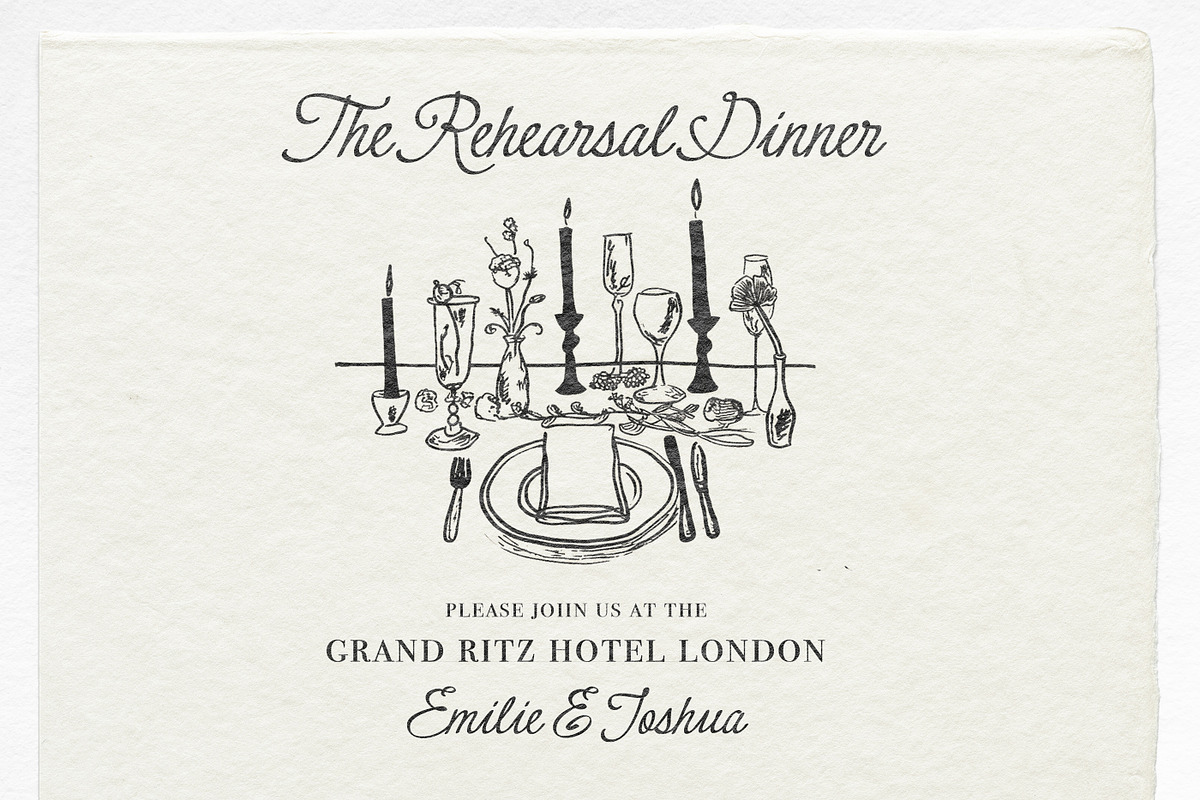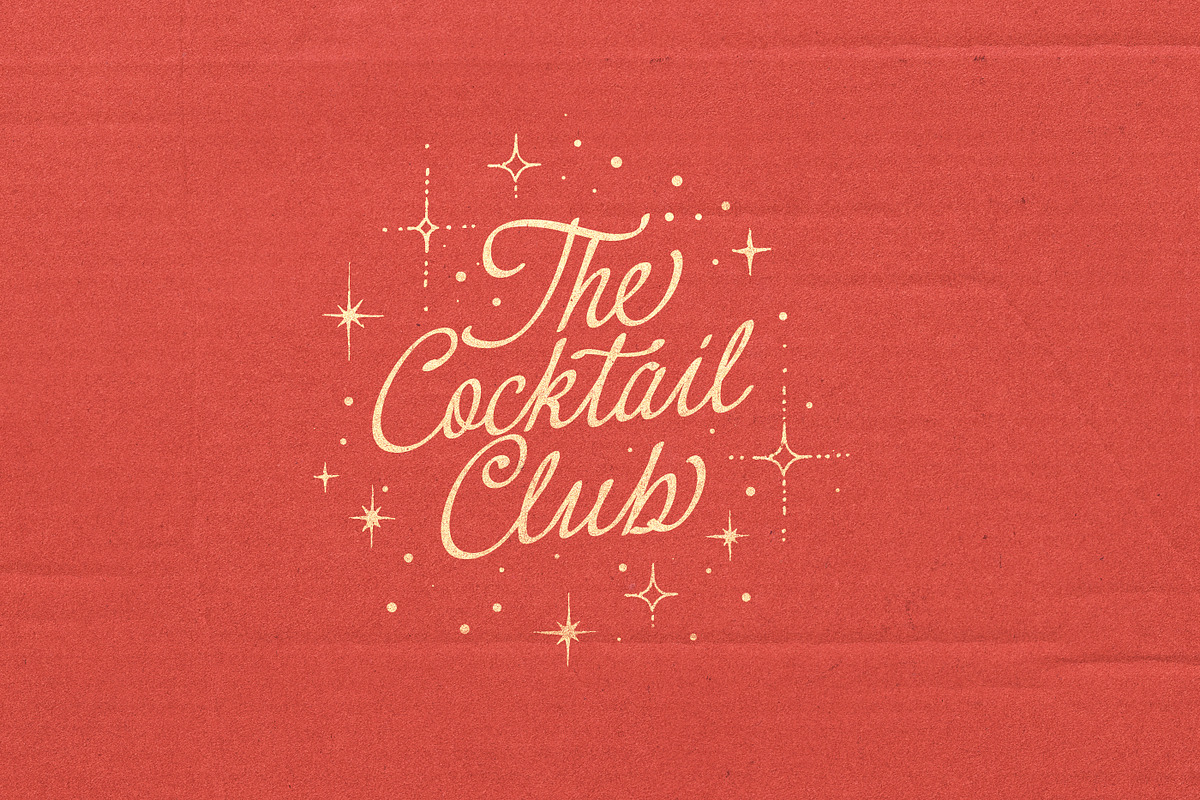
Le French Baguette Font
Le French Baguette is a delightfully chic and light-hearted freshly-quilled script! Whether you’re throwing a shindig, crafting up some bespoke stationery, or just want to make your blog look effortlessly cool, ” Le French Baguette ” is your go-to for that authentic, vintage, just-off-the-writing-desk vibe. Every letter has been lovingly penned as if with a real quill.
Each Uppercase letter has an Alternate ‘fancier’ letter (Turn on your Opentype features or copy and paste them from the font book for apps like Canva), and each lowercase letter has a mini end swash variant too.